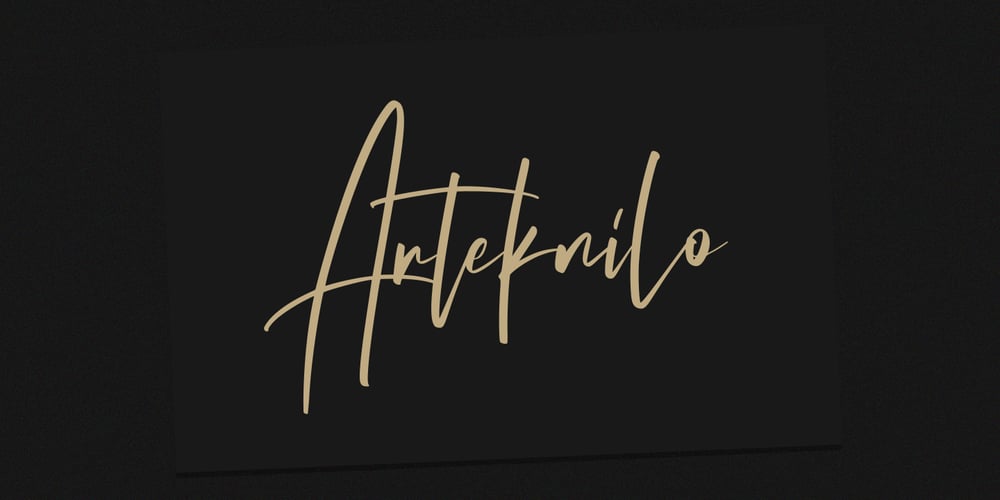
Arteknilo
Arteknilo font
Arteknilo Font Family was designed by Gilang Maulana and published by Maulana Creative. Arteknilo contains 1 styles and family package options. Give your designs an authentic brush handcrafted feel. Arteknilo is perfectly suited to signature, stationery, logo, typography quotes, magazine or book cover, website header, flyer, clothing, branding, packaging design and more.Thanks for use this font.MaulanaCreative